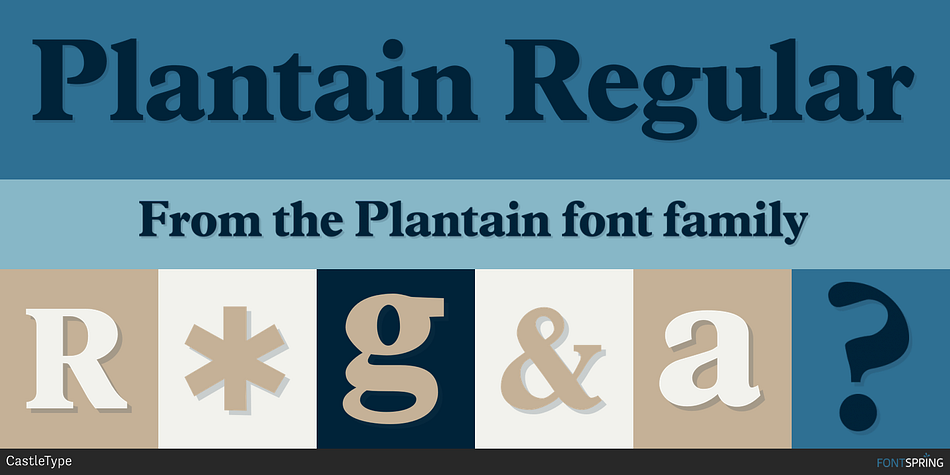
Plantain Regular
Plantain is a serif, stencil and display serif font family. This typeface has two styles and was published by CastleType.
Plantain™ was commissioned by Smarter Image for their catalog several years ago.
Plantain™ was commissioned by Smarter Image for their catalog several years ago. Very bold and tightly spaced with tall x-height; ideal for large headlines and adwork. Named after one of my favorite foods: fried plantain; yum! Original name: Plantin Adweight. Plantin was originally designed by F. H. Pierpont, who based the design on that of a famous 16th century printer, Christopher Plantin, for whom Pierpont’s font was named. Now available in a stencil style.